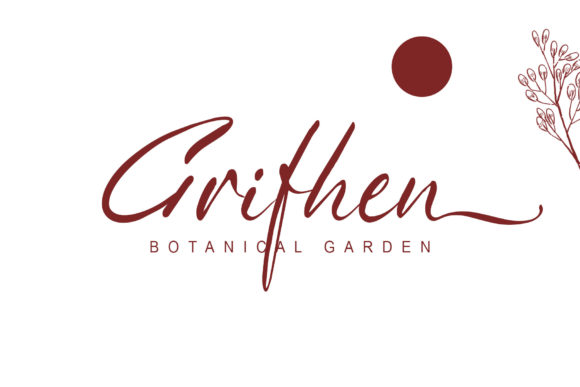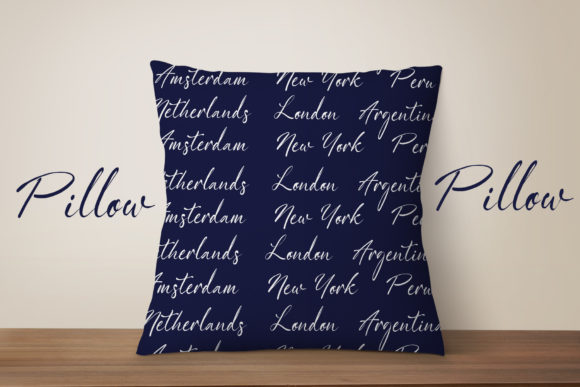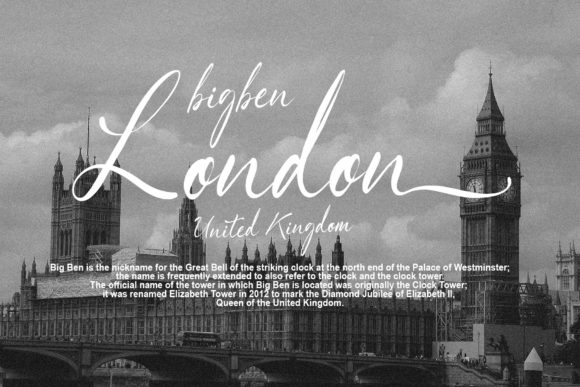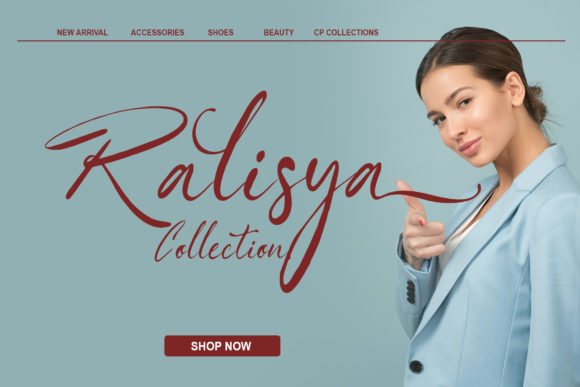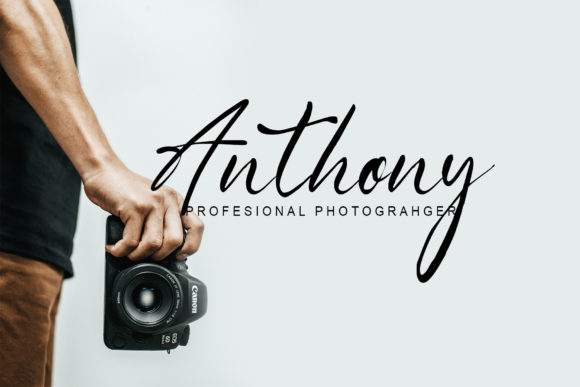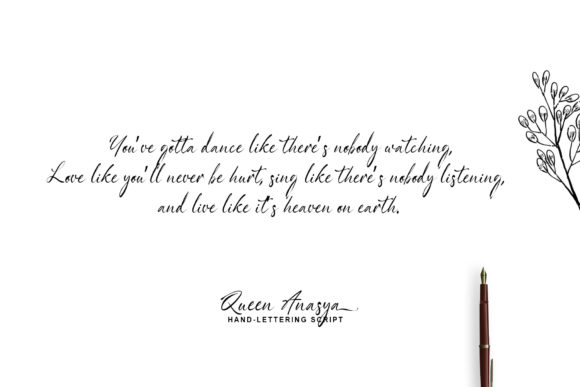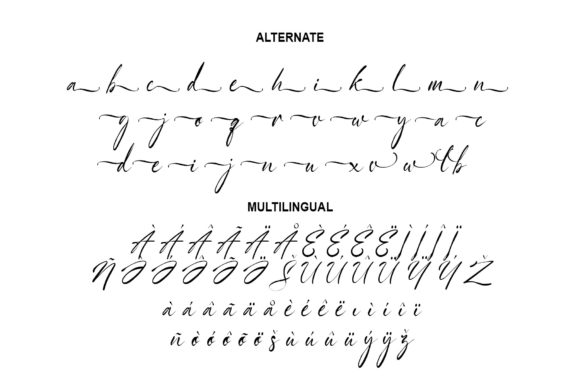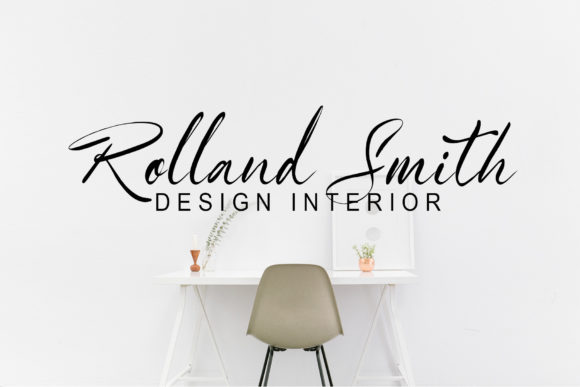
Queen Anasya Font
About Queen Anasya Font
Queen Anasya is a modern handwritten font. It’s perfect for branding, wedding invitations, birthday cards, or any other project that requires a sweet handwritten accent and a friendly vibe!